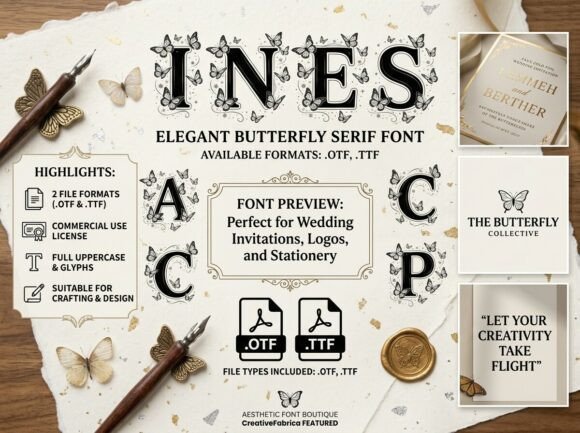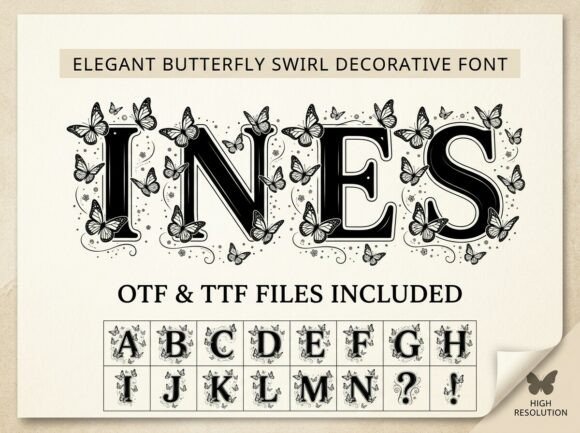
Introduction to Ines Font
Enchant your audience with Ines, a premium decorative font that captures the delicate flutter of a secret garden.
This illustrative typeface features elegant, high-contrast serif letterforms surrounded by a whimsical swarm of hand-drawn butterflies, sparkling stardust, and graceful filigree With its “ethereal-fairytale” soul and intricate detailing, Ines is the premier choice for luxury bridal stationery, boutique apothecary branding, enchanting book cover titles, and cinematic “cottage-core” social media headers.
Key Features of Ines Font